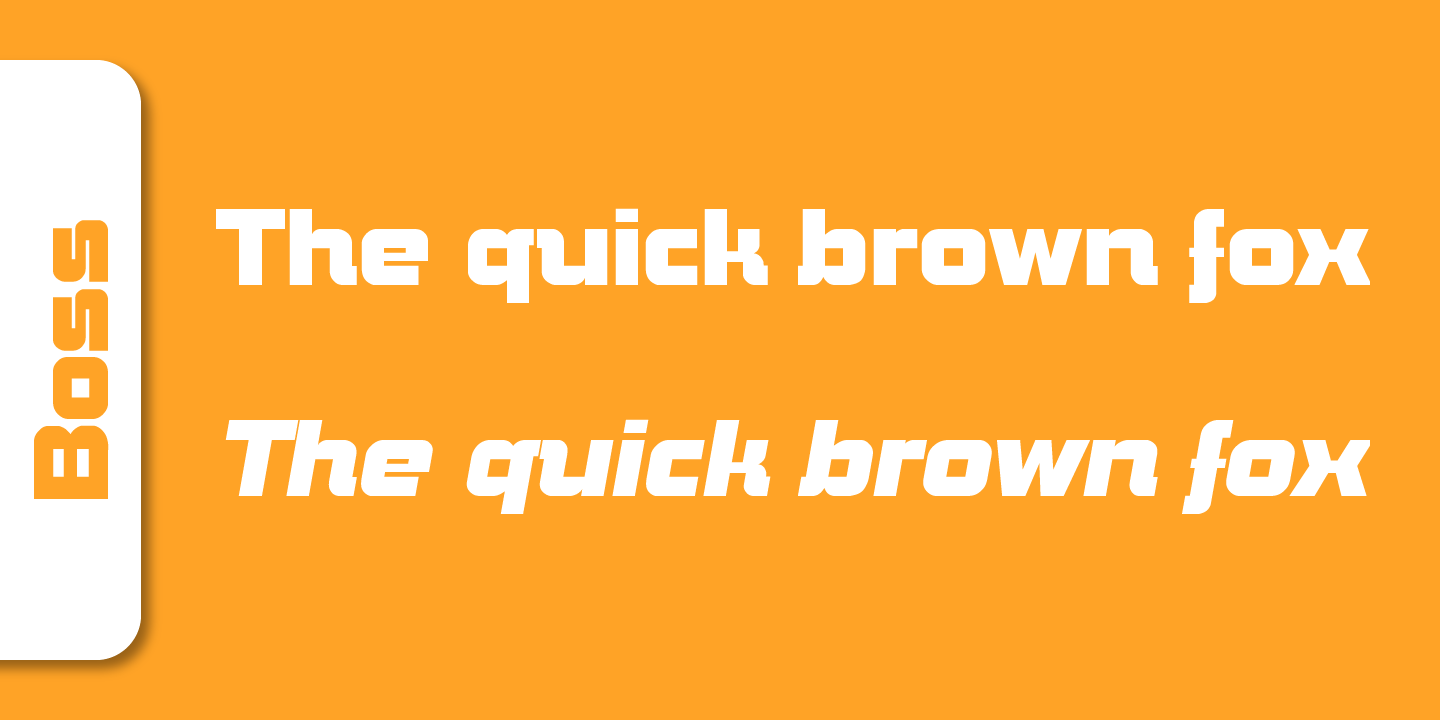
Boss Font Free Download is a bold and commanding typeface that’s built to make a lasting impression. With strong lines, sharp edges, and a modern design aesthetic, this font is perfect for logos, branding, posters, headlines, and any creative project that needs to radiate confidence and authority.
Whether you’re crafting a visual identity for a startup, designing marketing materials, or creating attention-grabbing titles, Boss Font Free Download delivers power and presence. Its bold structure ensures your message is seen—and remembered. Boss doesn’t whisper; it speaks loud and clear.
Take control of your design game with Boss Font Free Download — a typeface that brings professionalism, edge, and assertiveness to every layout. Try it today and make your typography the boss of the boardroom and beyond.